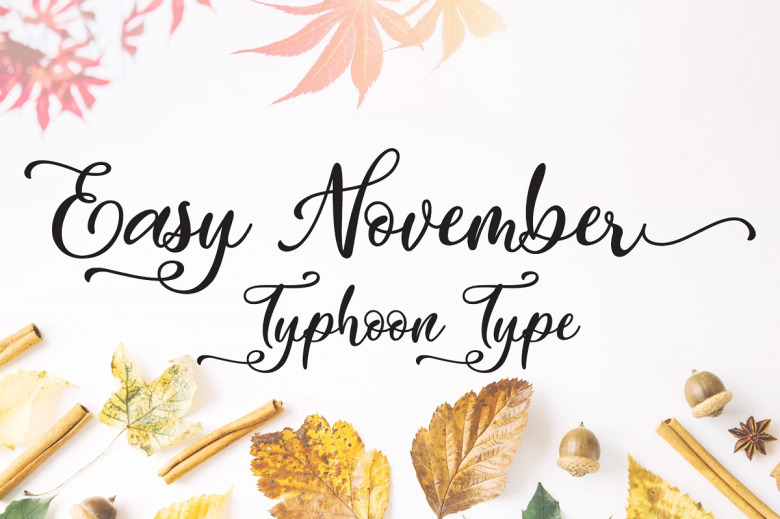
Easy November Font
Easy November is a stunning, swirly font that will give your work a charming and feminine appeal. This display font has a rich look, and can elevate the typographic presence in your works.
Easy November Handwritten Font